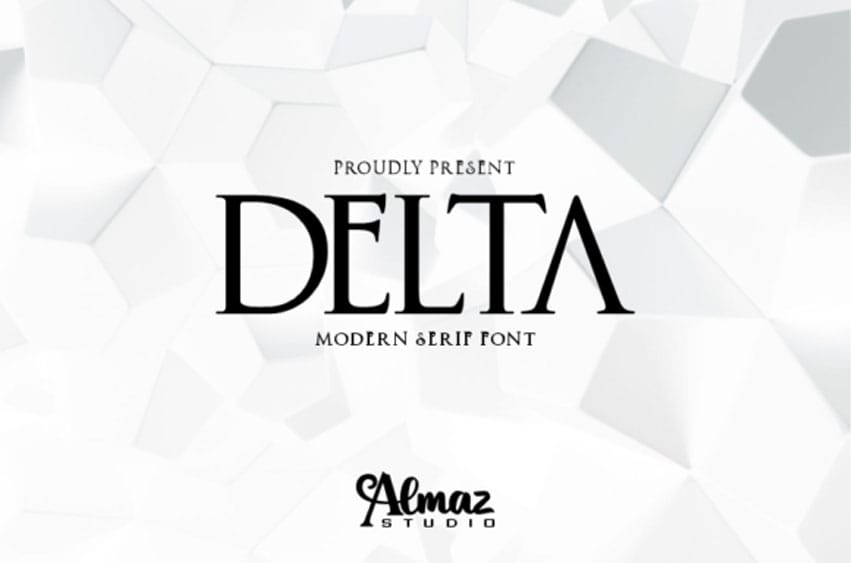
Delta Modern Font is an elegant and distinct serif font. It maintains its classy calligraphic influences while feeling contemporary and fresh.
Fall in love with this font and bring your projects to the highest levels! A tall condensed typeface specially designed for beautiful titles.